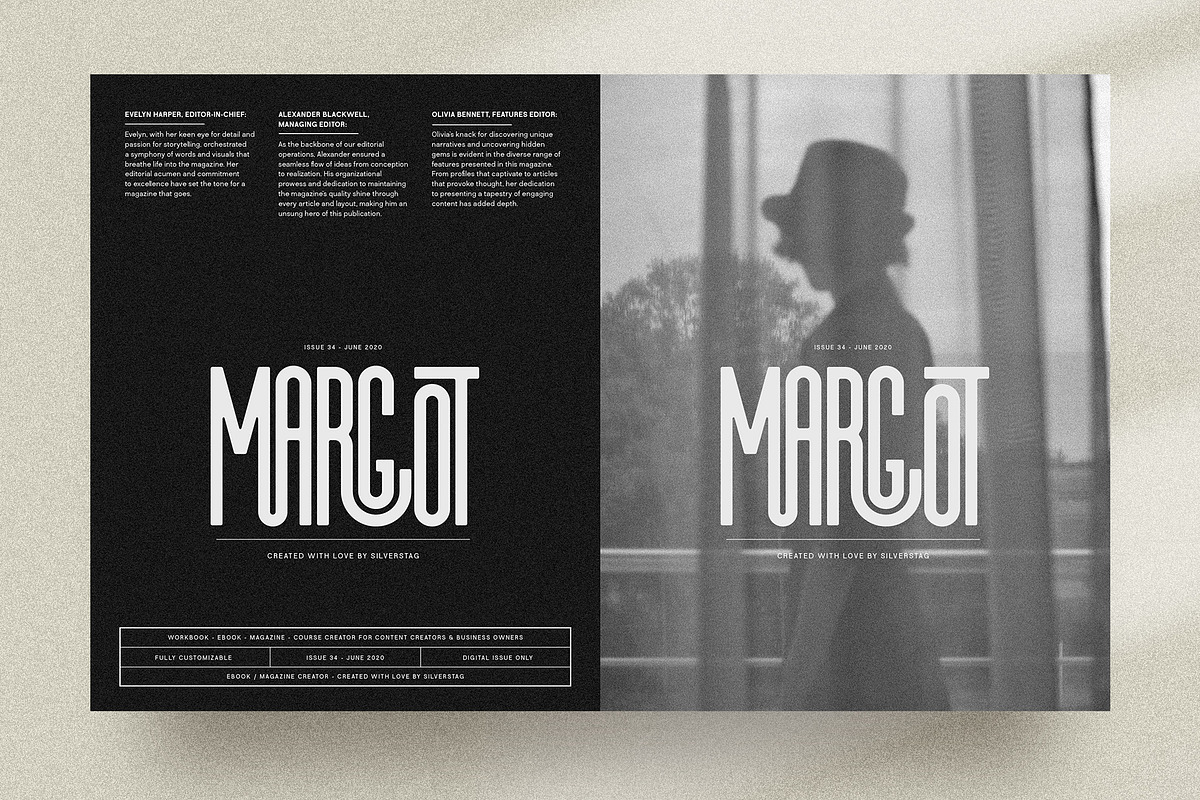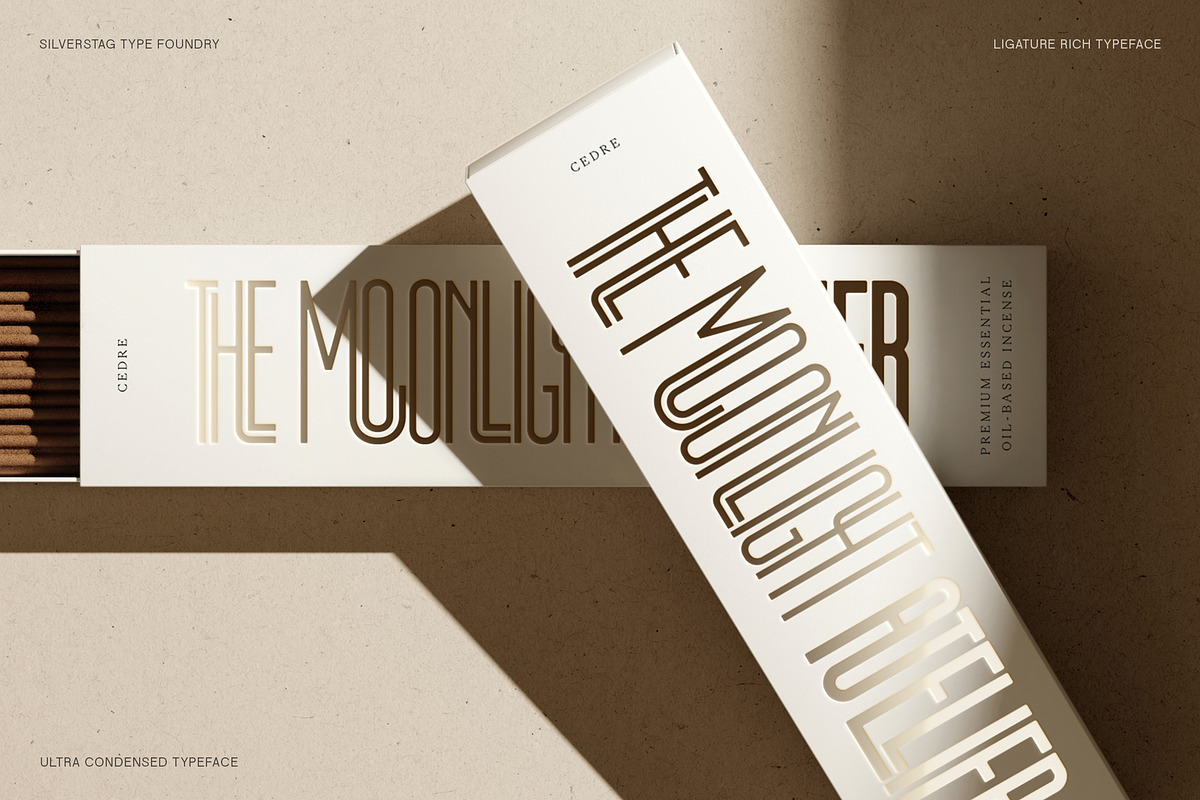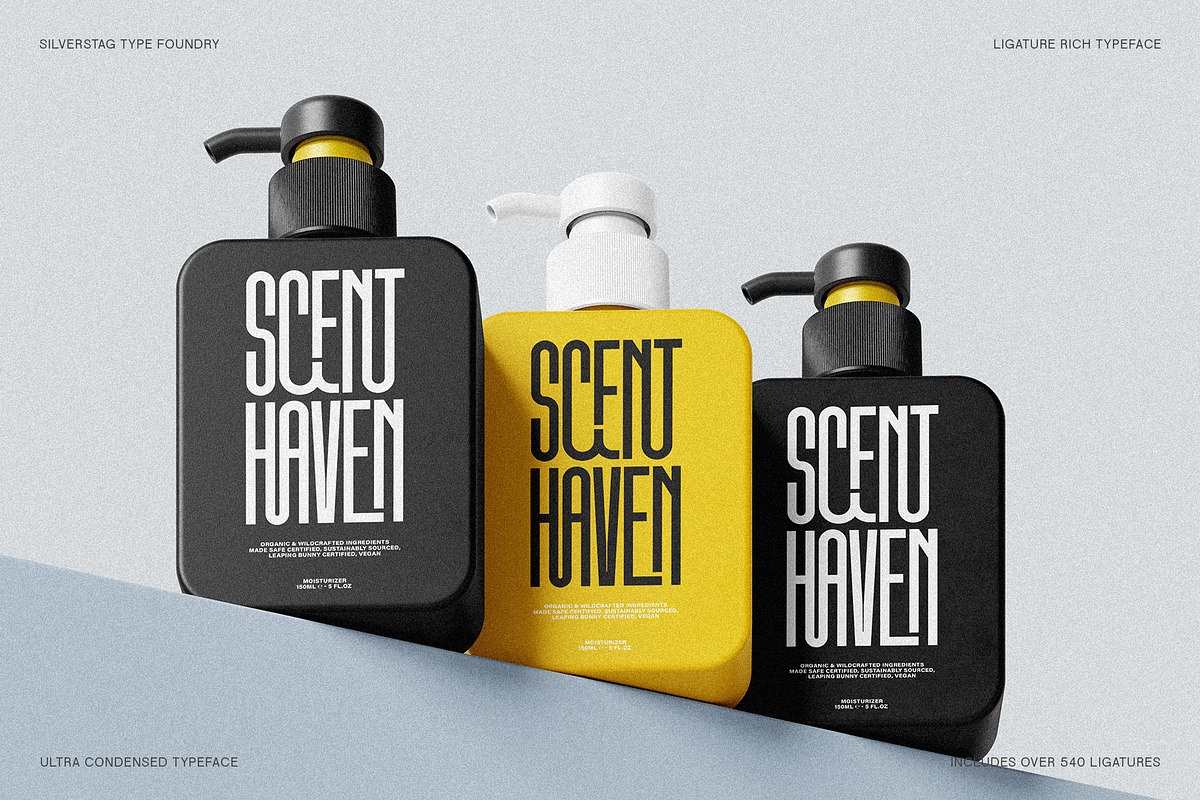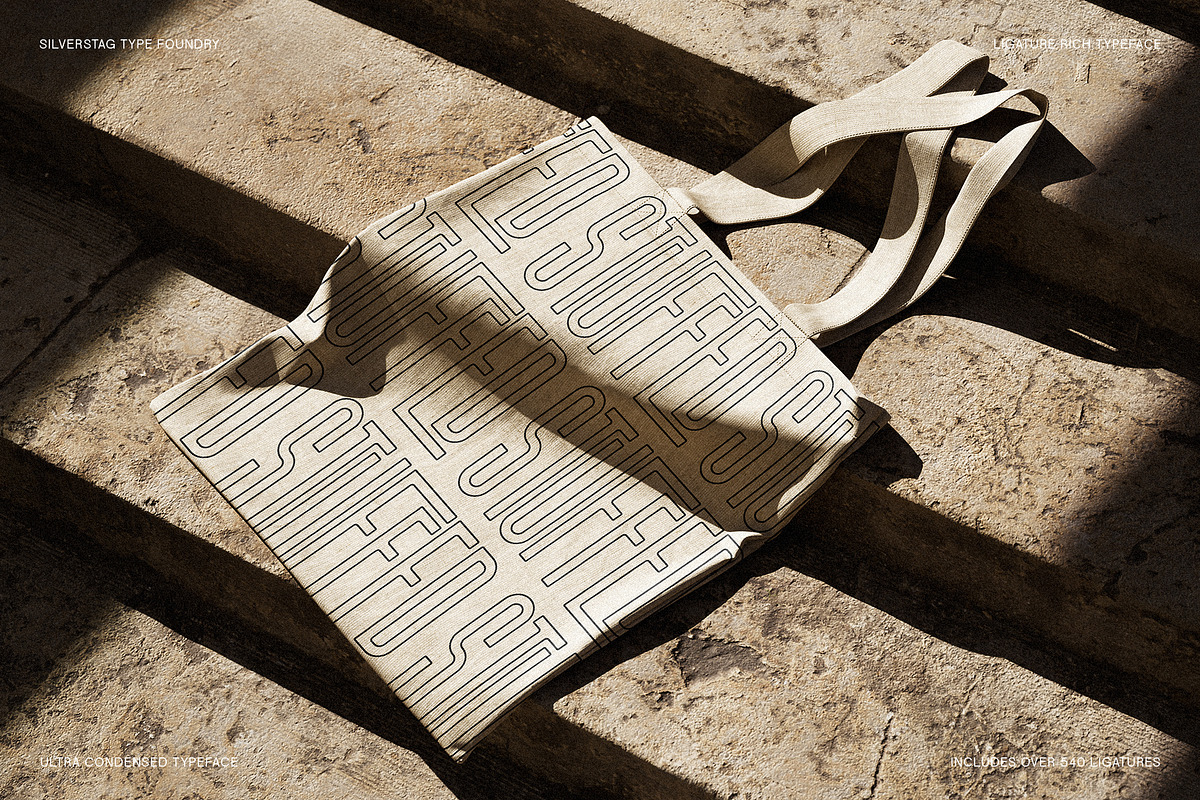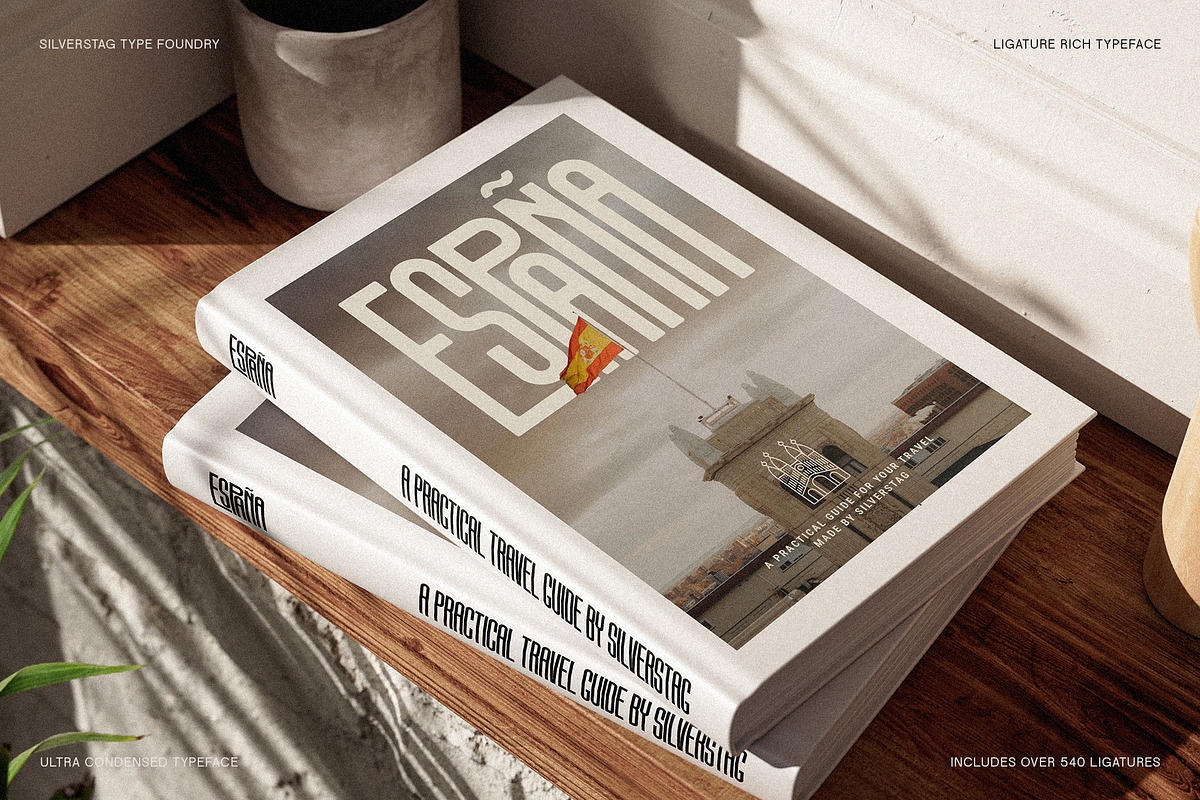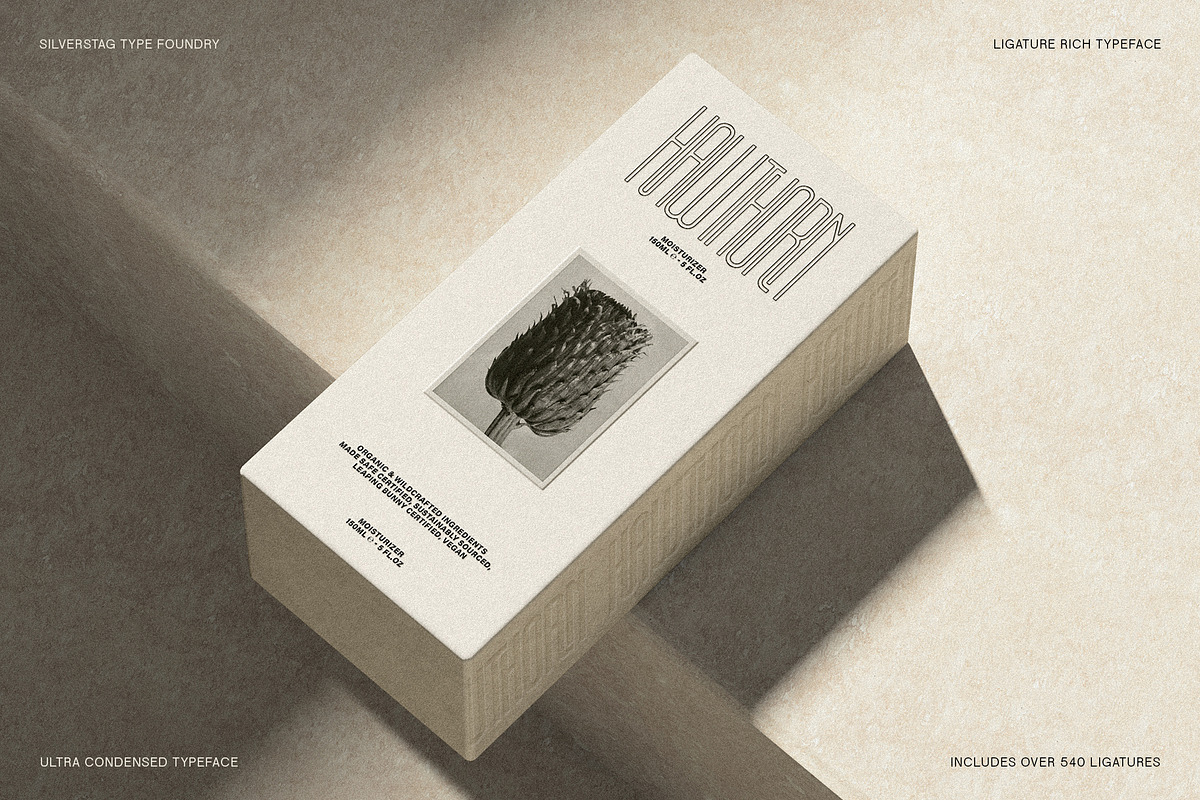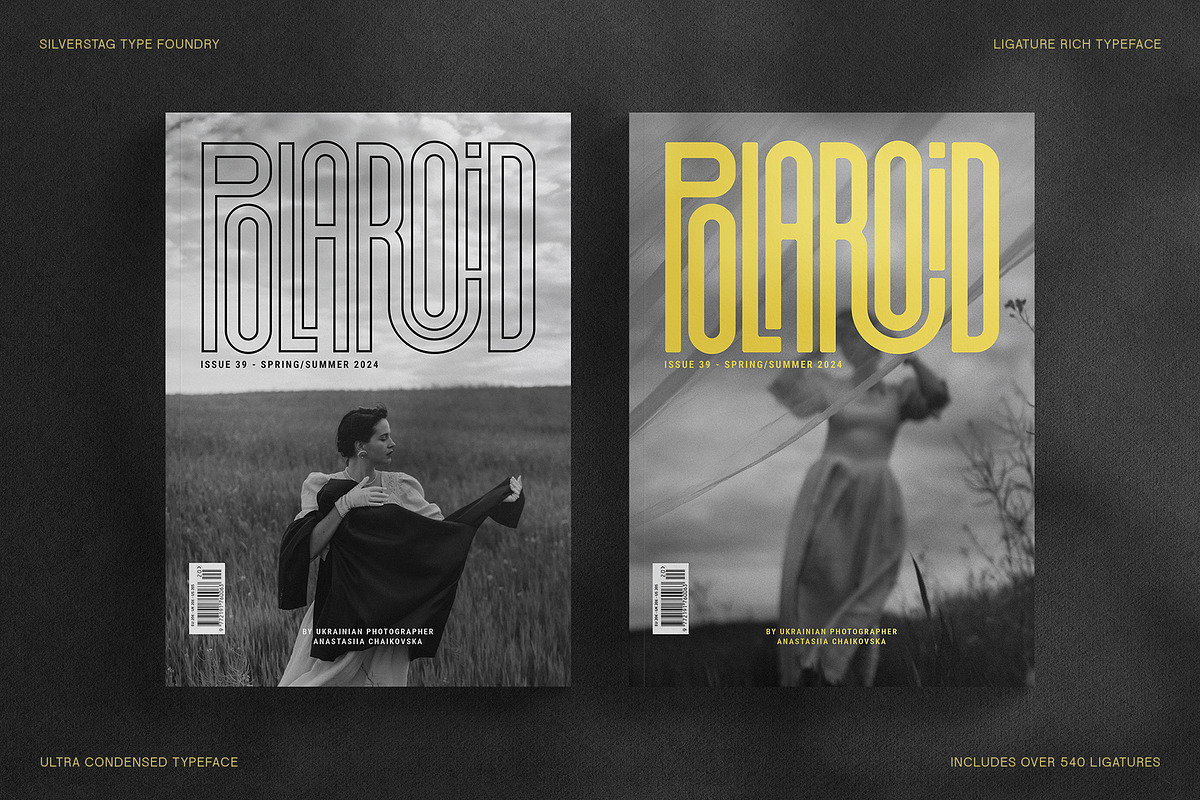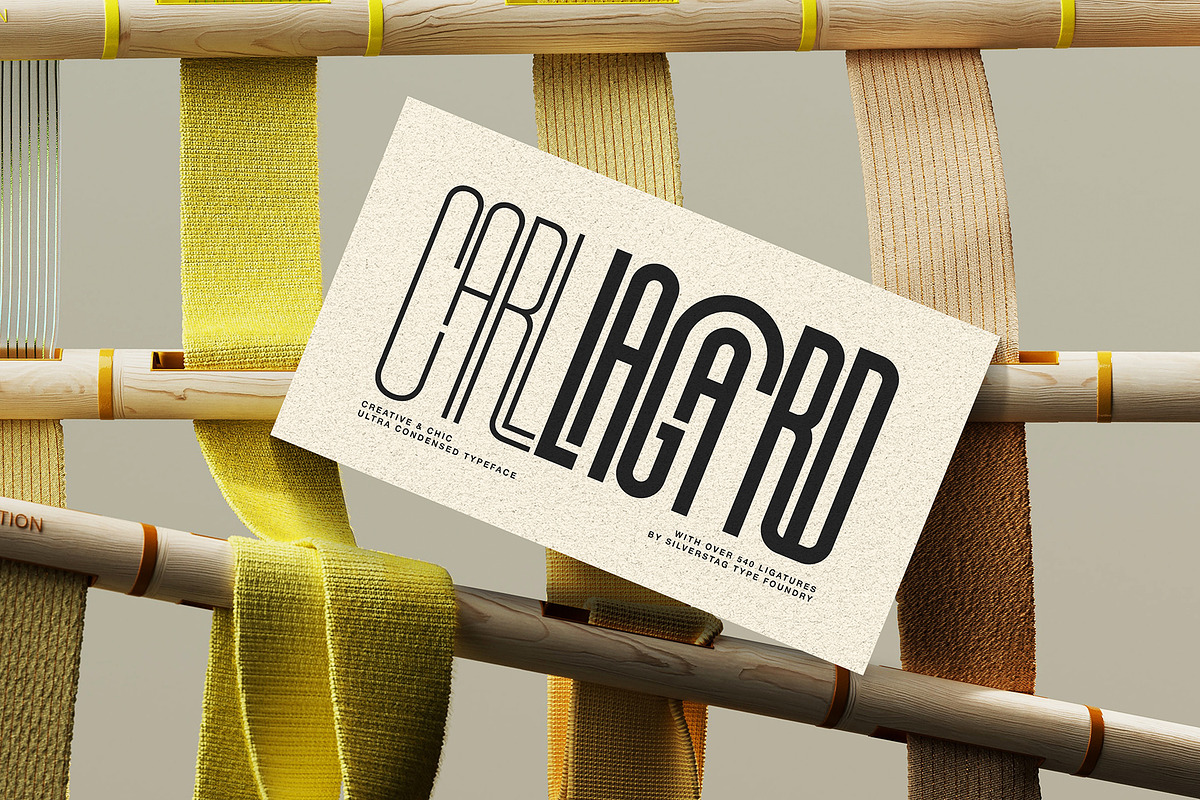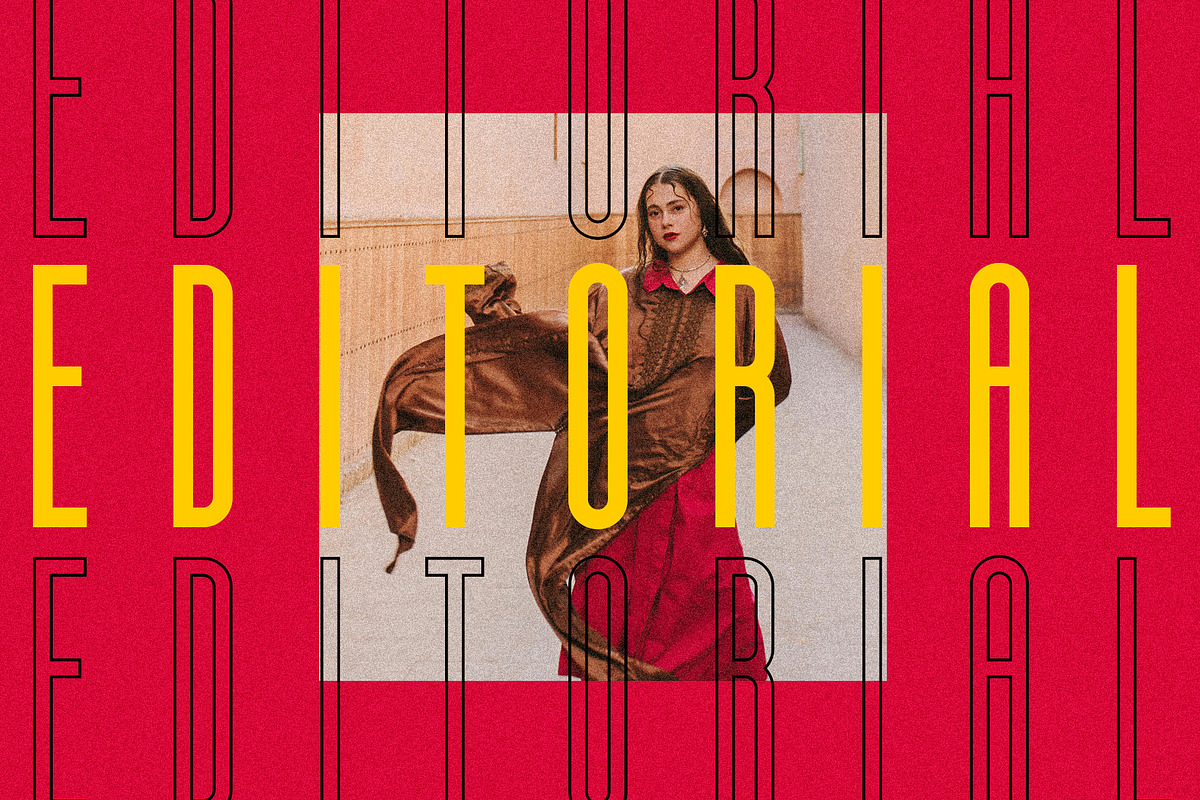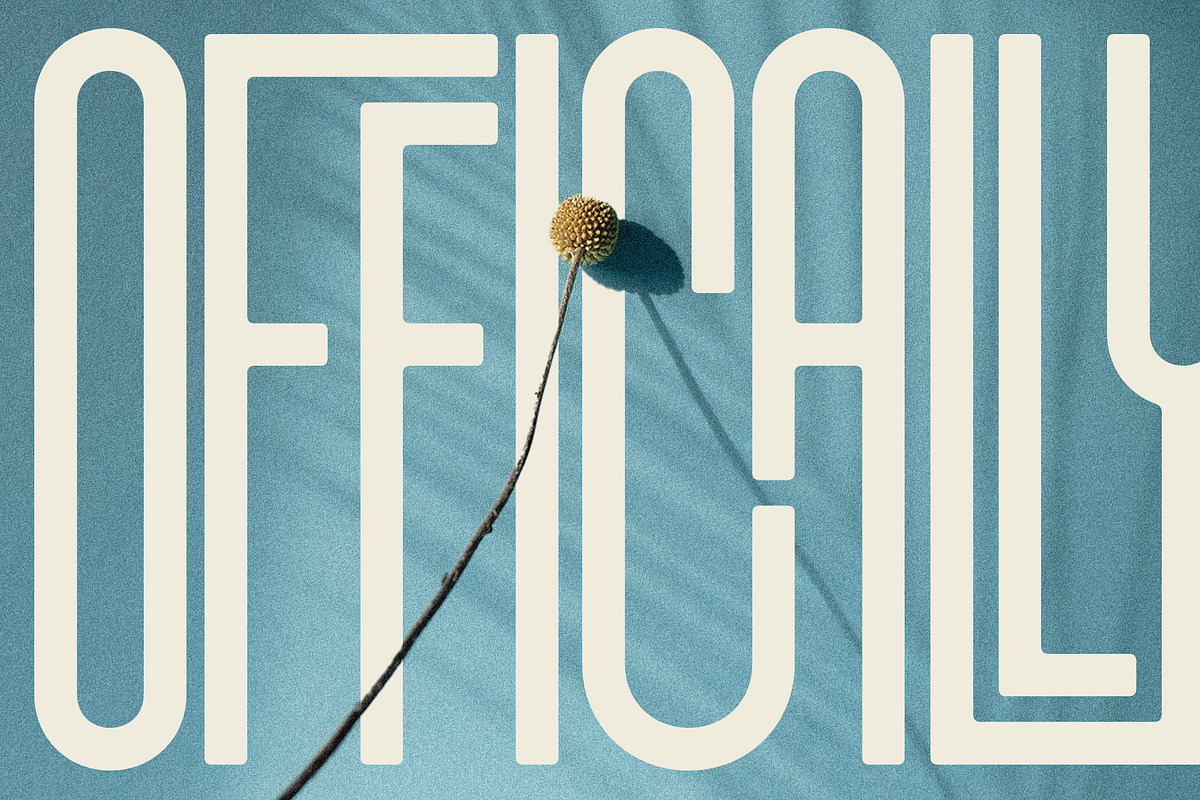
First Contact - 16 Fonts in One Pack
Introducing First Contact: The Ultra-Condensed Typeface Family for Maximum Impact
Elevate your designs with First Contact – a comprehensive and versatile ultra-condensed typeface family. With its striking presence and space-saving design, First Contact is ideal for commanding headlines, unforgettable logos, cutting-edge web design, dynamic packaging, and any project that demands bold typography.
- Wide Range of Styles: Explore 16 distinct fonts, including Ultra Light, Light, Regular, and Thin weights – each available in outlined and rounded versions. Discover endless combinations to achieve your perfect look.
- Expressive Details: Add a touch of personality with over 540 meticulously crafted ligatures. These special character combinations inject flair and uniqueness into your work.
- Global Reach: First Contact's extensive language support for over 90 languages ensures your designs connect with a worldwide audience.
- Project Versatility: From posters and websites to business cards and branding, First Contact seamlessly adapts to your diverse design needs.